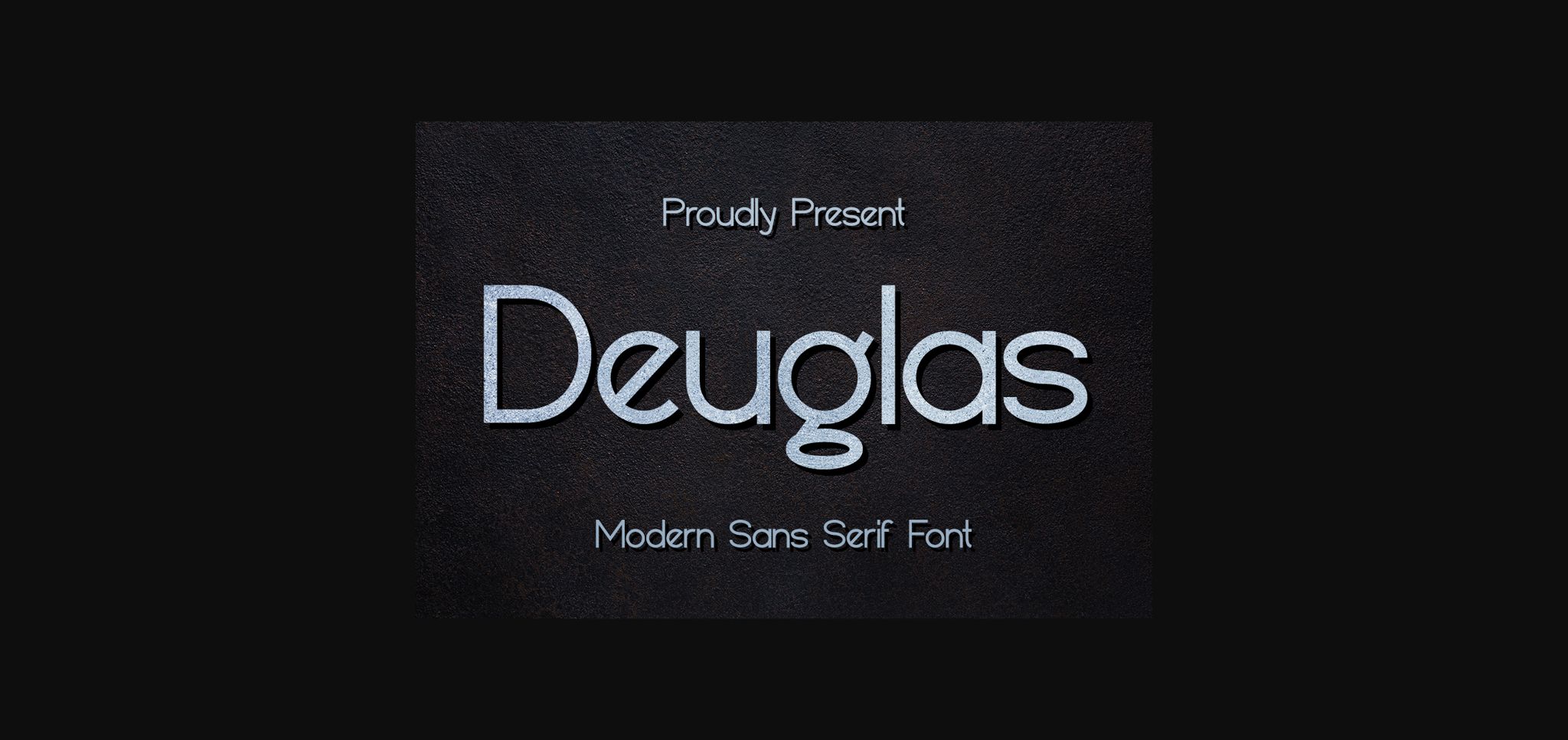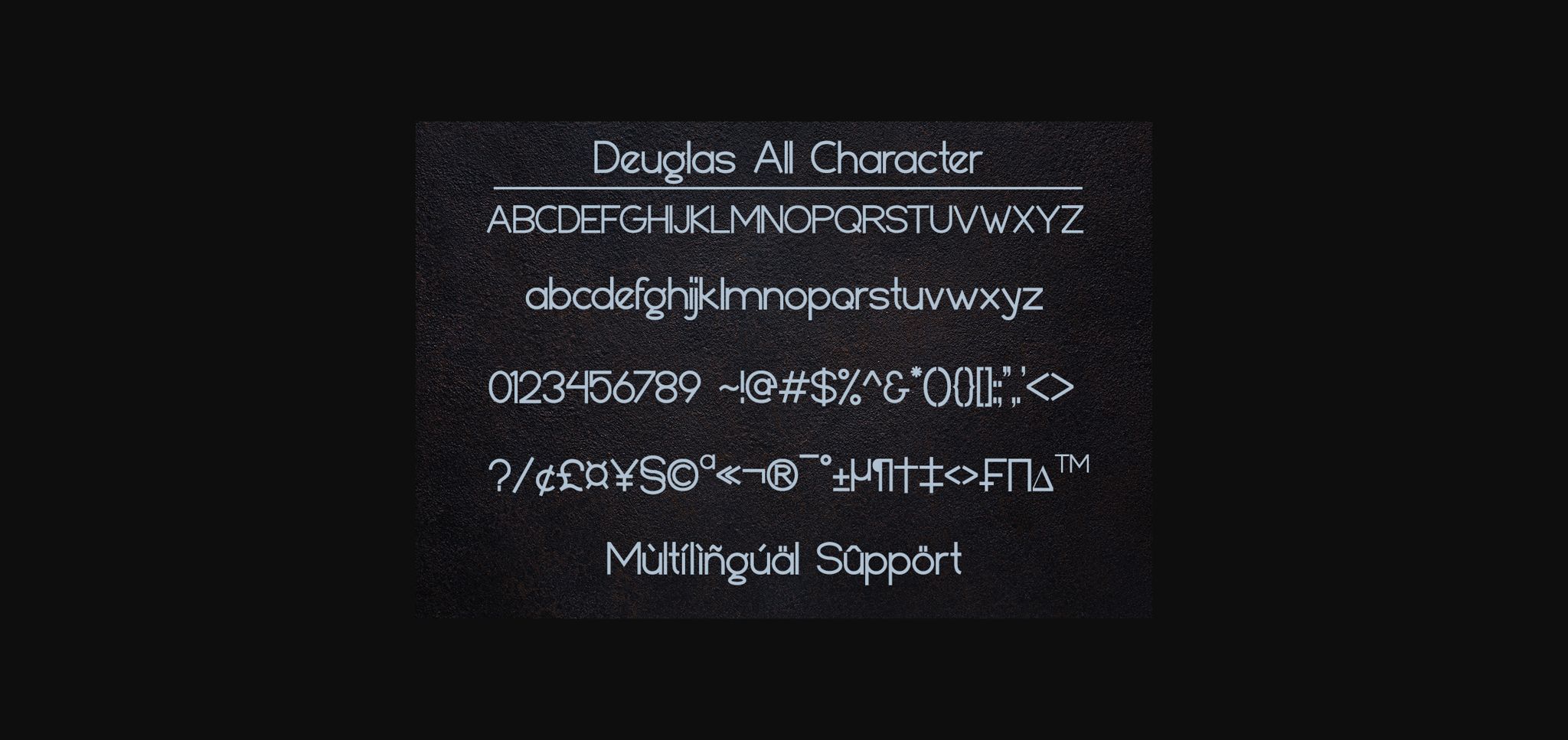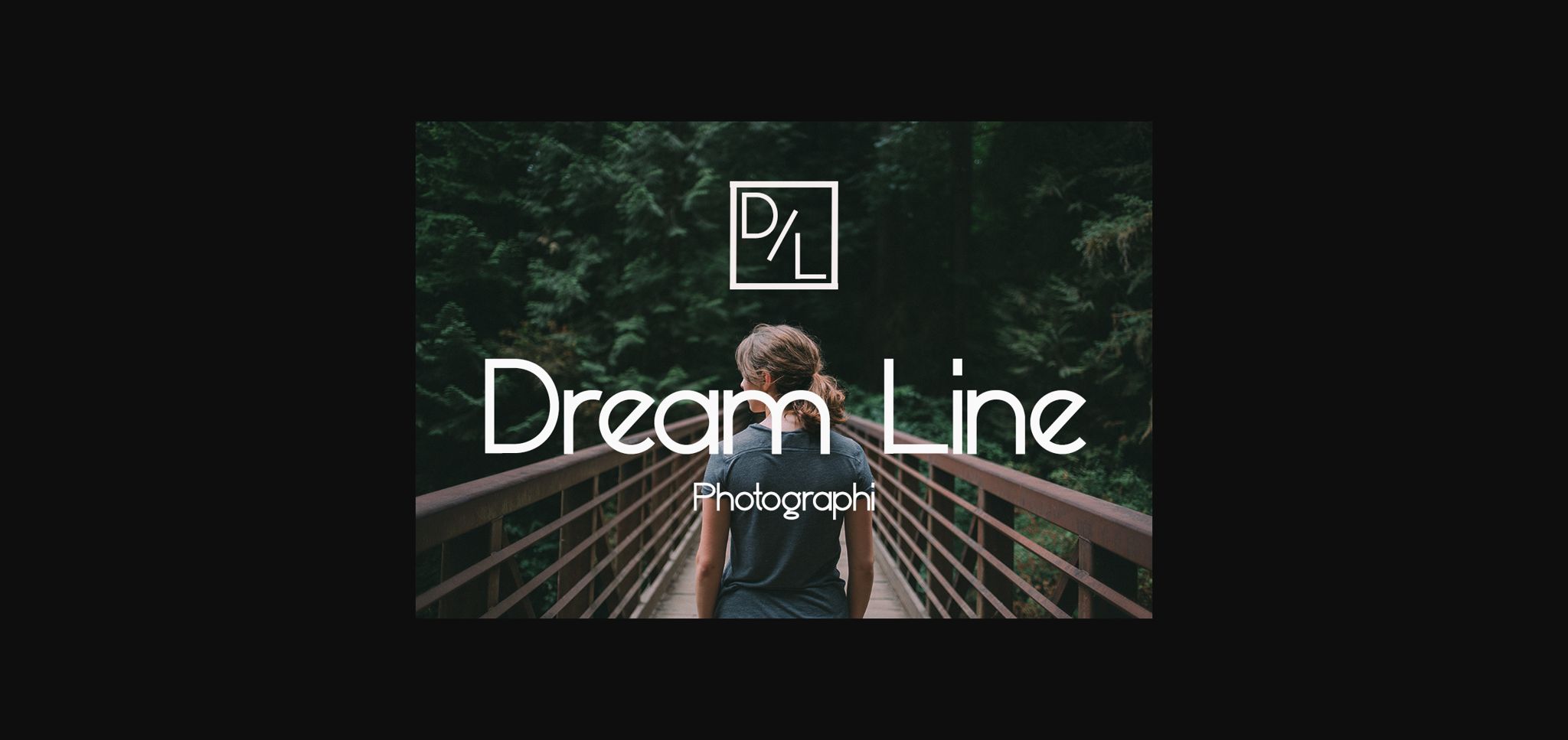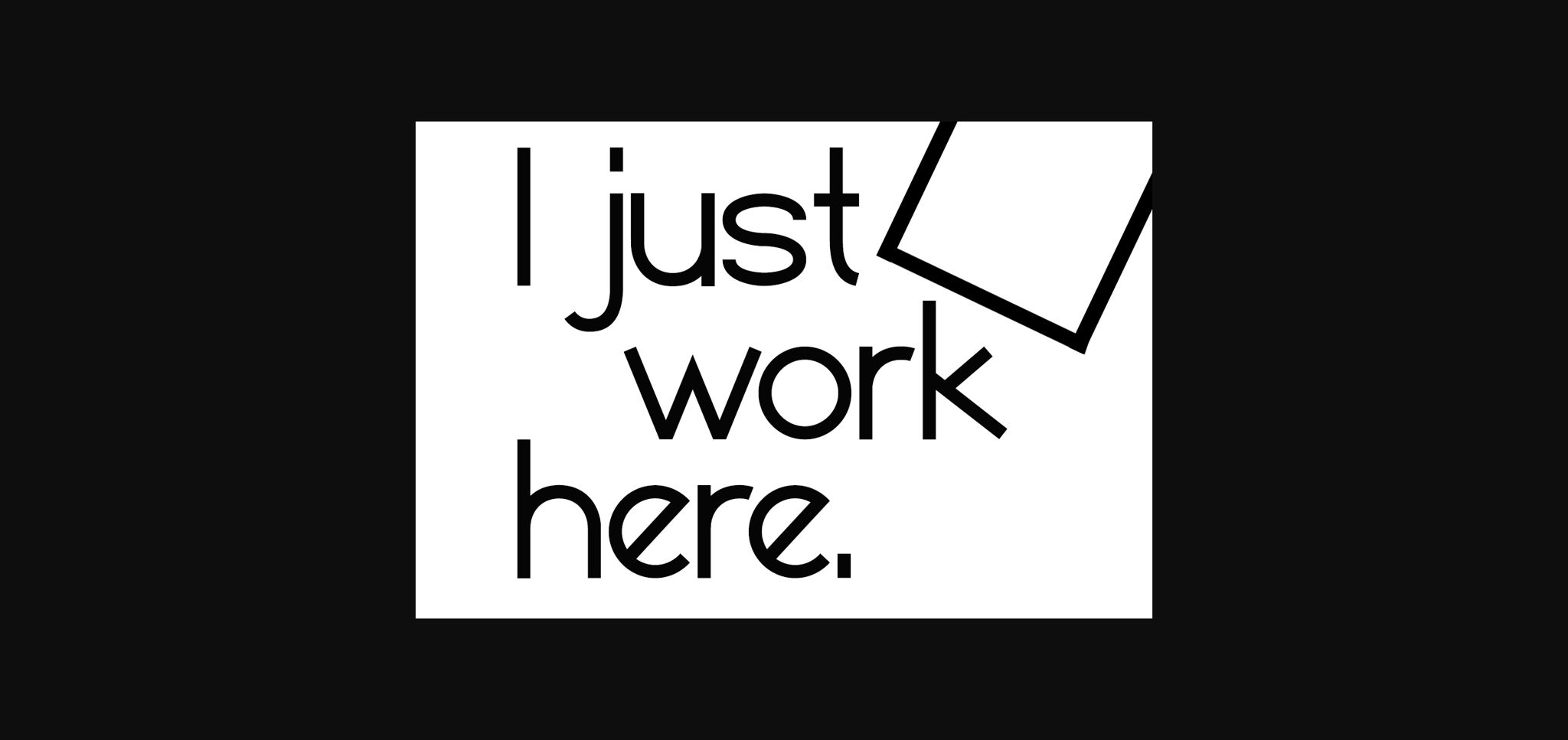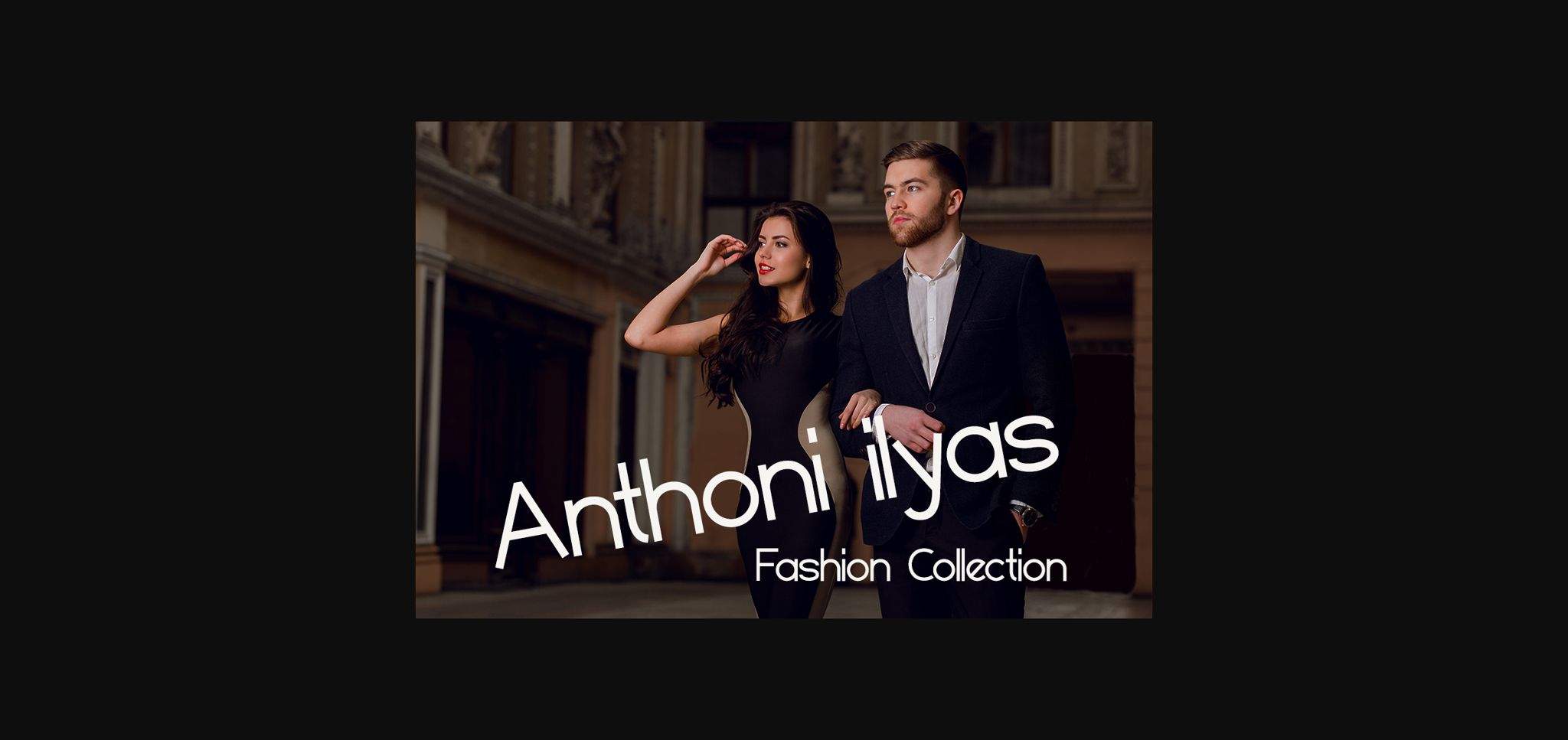
Deuglas Font
About Deuglas Font
Deuglas is a minimal and neat sans serif font. It can easily be matched to an incredibly large set of projects, so add it to your creative ideas and notice how it makes them stand out!